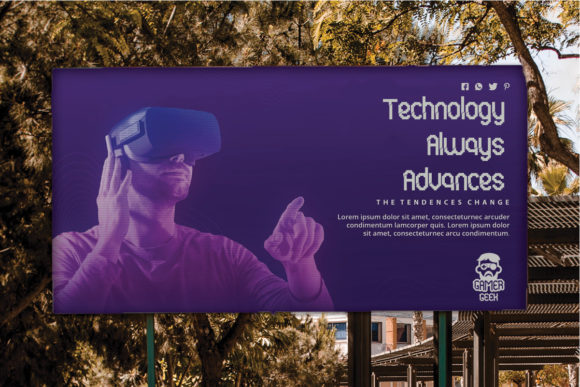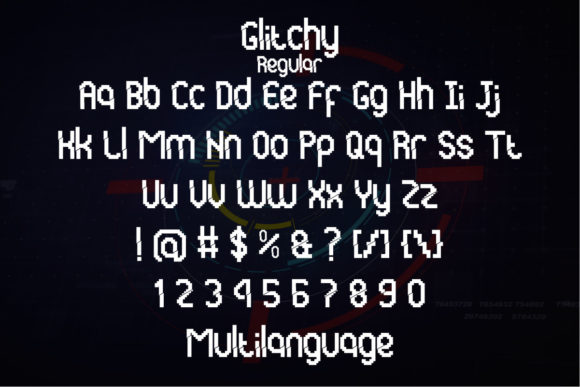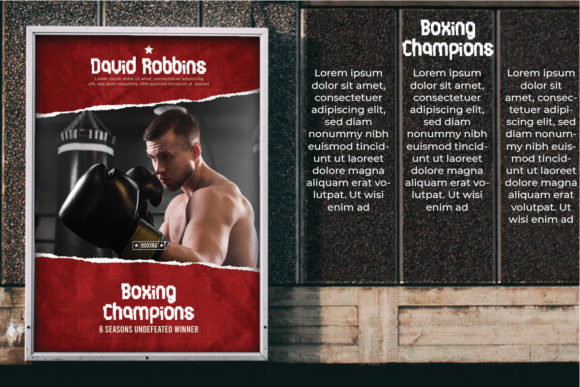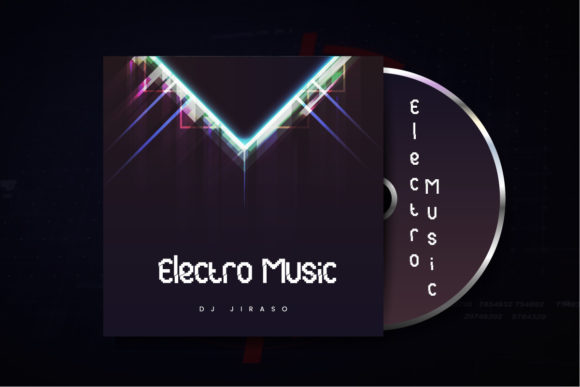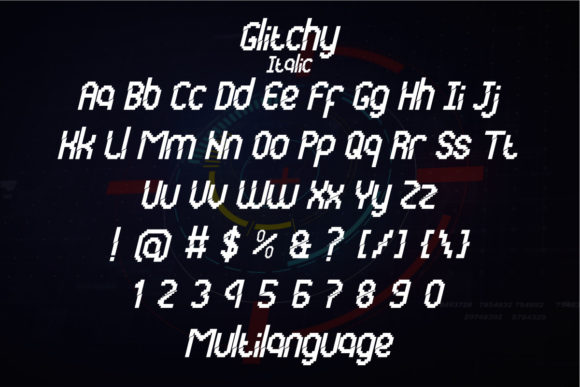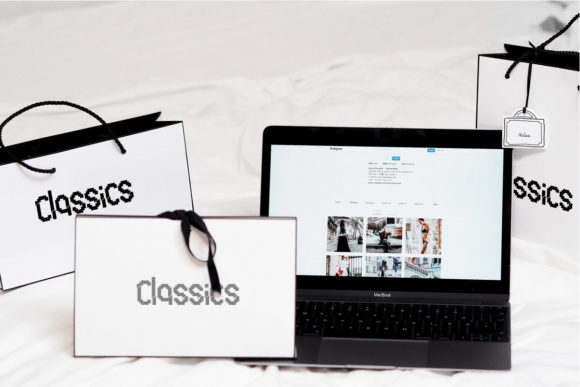
The Glitchy Font: A Futuristic Touch for Your Designs
I’ll never forget the time I was working on a futuristic-themed project for a tech client. I had a clear vision of what I wanted to achieve, but there was one major roadblock: finding the perfect font. I scoured the internet, tried countless combinations, and even considered designing my own from scratch. That’s when I stumbled upon the Glitchy font. It was love at first sight! 💻
Glitchy is a cool, robotic, and bold display font that’s perfect for web designs, posters, labels, tech branding, and any other project that requires a futuristic touch. In this article, I’ll share my honest review of the Glitchy font, provide a practical guide on how to use it, and explore similar fonts and alternatives.
Honest Review: What I Love and What I Don’t
The Good ✨
- 💥 **Unique and eye-catching design**: Glitchy is a true showstopper. Its bold, robotic aesthetic is sure to grab attention and make your designs stand out.
- ✅ **Highly versatile**: Whether you’re working on a web design, poster, or label, Glitchy adapts seamlessly to different contexts and formats.
- 🎨 **Excellent for tech branding**: If you’re working on a project that requires a futuristic or tech-inspired vibe, Glitchy is an excellent choice.
The Not-So-Good 🤔
- ⚠️ **Limited legibility at small sizes**: Glitchy is a bold font, but it’s not designed for body text. Be cautious when using it at small sizes, as it may become difficult to read.
- 🤔 **Some glyphs may require manual adjustment**: Depending on the platform or software you’re using, some glyphs or special characters may require manual adjustment to fit perfectly.
The Designer Inspiration Behind Glitchy
Glitchy was designed with the goal of creating a font that embodies the spirit of technology and innovation. The designer, who wishes to remain anonymous, drew inspiration from the world of robotics and futuristic design. The result is a font that’s both bold and elegant, perfect for making a statement in your designs.
Q: What is the Glitchy font best used for?
A: Glitchy is best used for web designs, posters, labels, tech branding, and any other project that requires a futuristic touch.
Q: Is Glitchy a difficult font to read?
A: Glitchy is a bold font, but it’s not designed for body text. While it’s still legible at larger sizes, it may become difficult to read at smaller sizes.